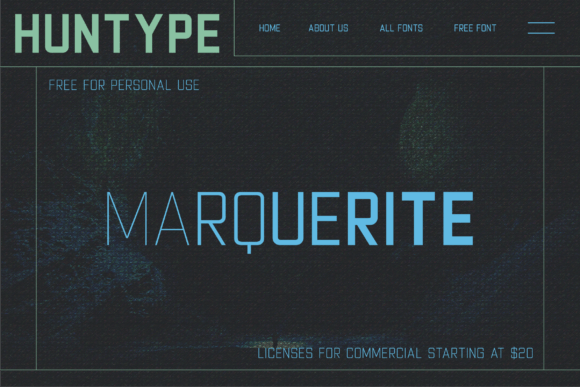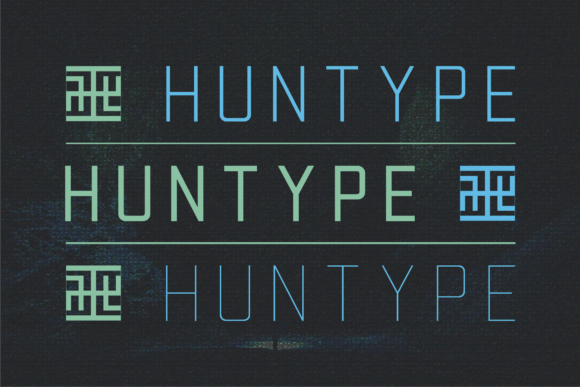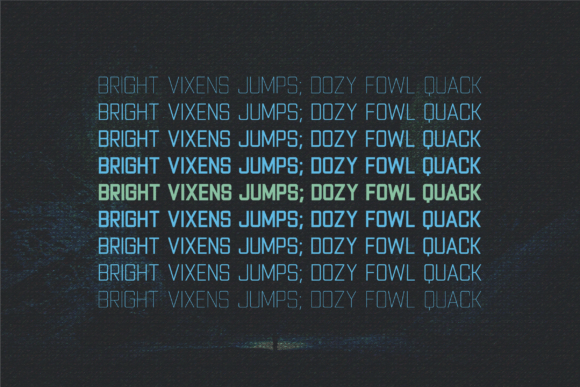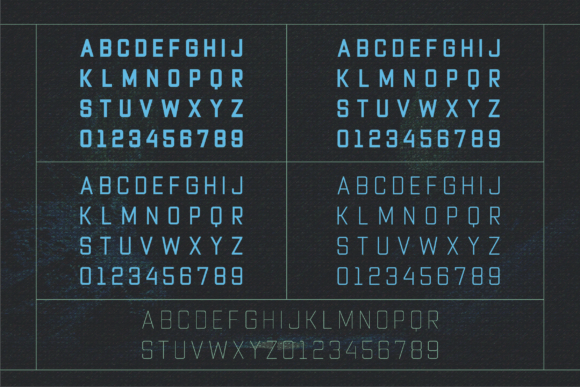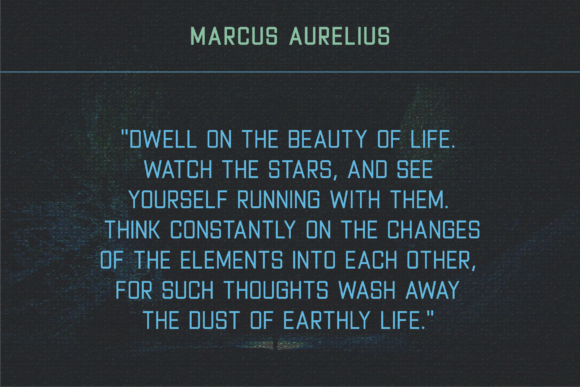
Introduction to Marquerite Font Font
Fonts play a crucial role in design, and the Marquerite Font font is a typeface that brings both character and versatility to any project. Whether you’re working on a branding project, a website, or a print design, the Marquerite Font font offers a unique style that can elevate your work.
Introducing Marquerite Sans Serif Font Family, a meticulously crafted font family that epitomizes elegance, modernity, and versatility.
With its five distinct weightsβTHIN, LIGHT, REGULAR, BOLD, and BLACK Marquerite Font Family offers a wide range of creative possibilities, making it the perfect choice for designers and content creators.
Key Features of Marquerite Font Font
Why Choose Marquerite Font Font?
The Marquerite Font font is more than just a typeface β it’s a design tool that helps you communicate your message with style and clarity. Its unique character set and versatile design make it suitable for a wide range of applications, from elegant invitations to bold headlines.
With its carefully crafted letterforms and balanced proportions, the Marquerite Font font ensures readability and visual appeal across all mediums.
What makes Marquerite Font font special?
The Marquerite Font font stands out with its unique design, exceptional readability, and versatility across various design applications.